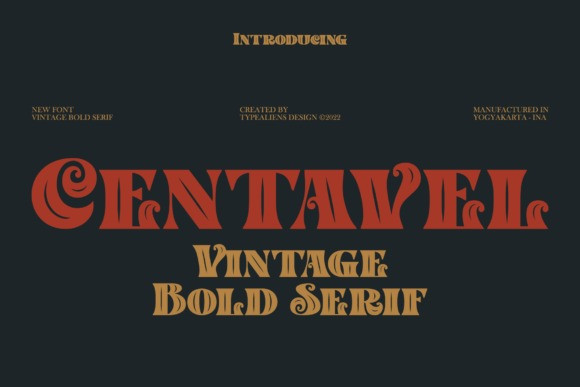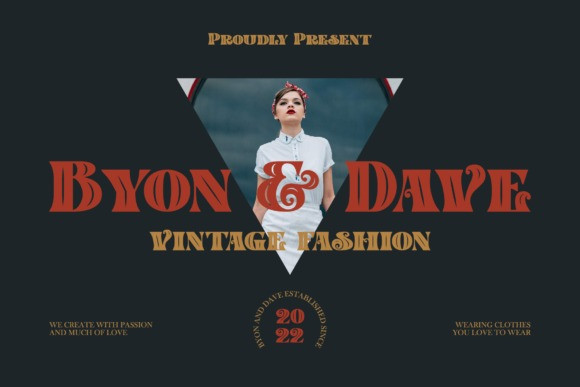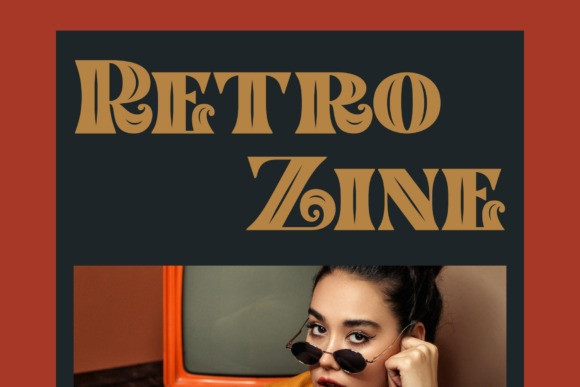
Centavel Font
Centavel is a vintage and bold looking display font. It features a strong and unique character, which will elevate all of your designs. Use this font for your designs and explore its endless possibilities.